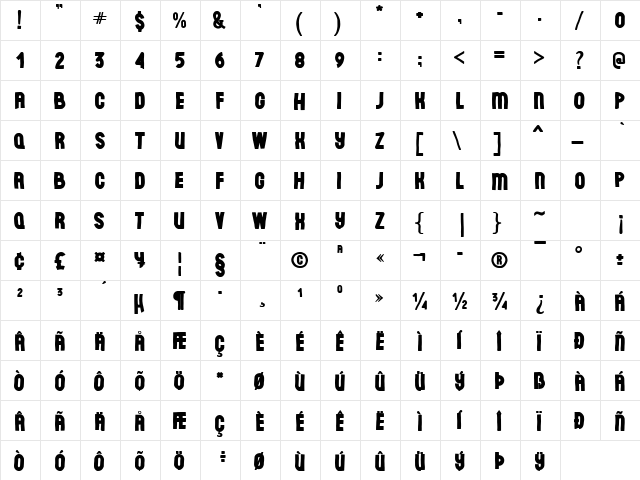
Dave Gridder Regular
Design Context for Dave Gridder Typeface
Dave Gridder takes a measured approach to typography — its balanced proportions and neutral character make it a reliable workhorse for both digital and print work.